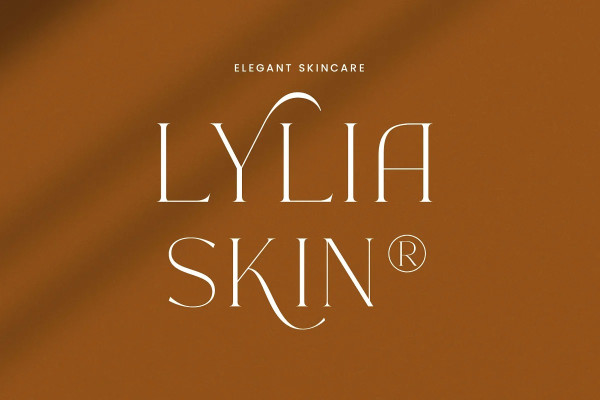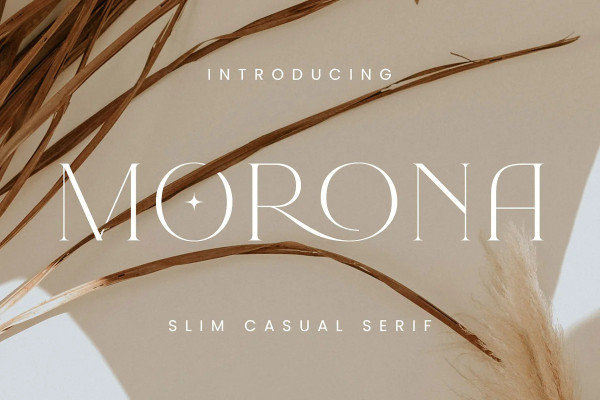
Morona Font
Morona Font is a beautiful, classy, and chic font with an elegant and minimalist design, making it perfect for creating stunning design projects, especially in logos, displays, fashion, wedding, lifestyle, and branding. This font contains numerous special characters, providing satisfying results.
Moreover, Morona Font includes a wide variety of ligatures, allowing you to achieve a magnificent look on your posters, cards, logos, quotes, invitations, books, prints, packaging, and more.